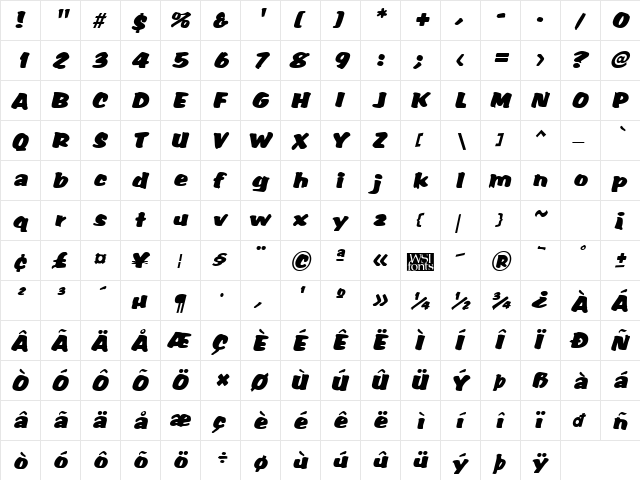
Albert Italic
Design Context for Albert Typeface
Albert is a composed and adaptable typeface that performs quietly and consistently across a wide range of design contexts. Its italic angle brings a sense of urgency and motion to the letterforms.
Pro Tip: Try Albert for annotation and caption copy alongside an upright companion — the contrast in angle creates a dynamic but ordered typographic system.